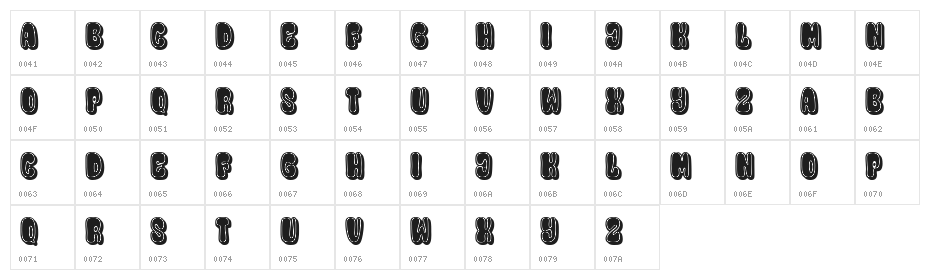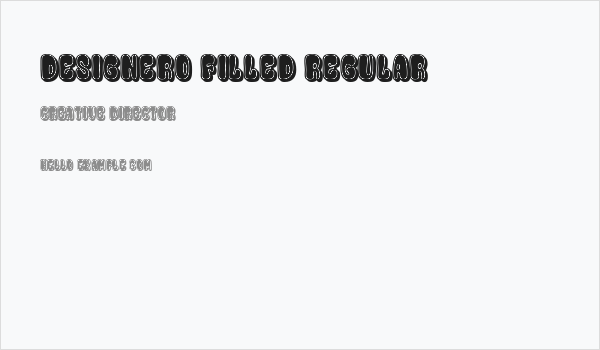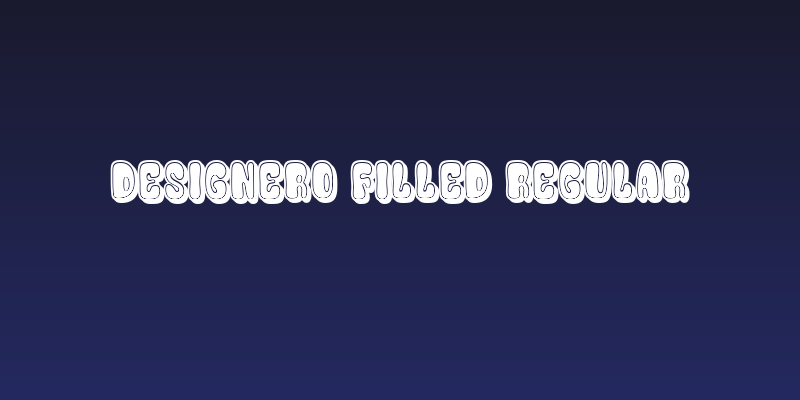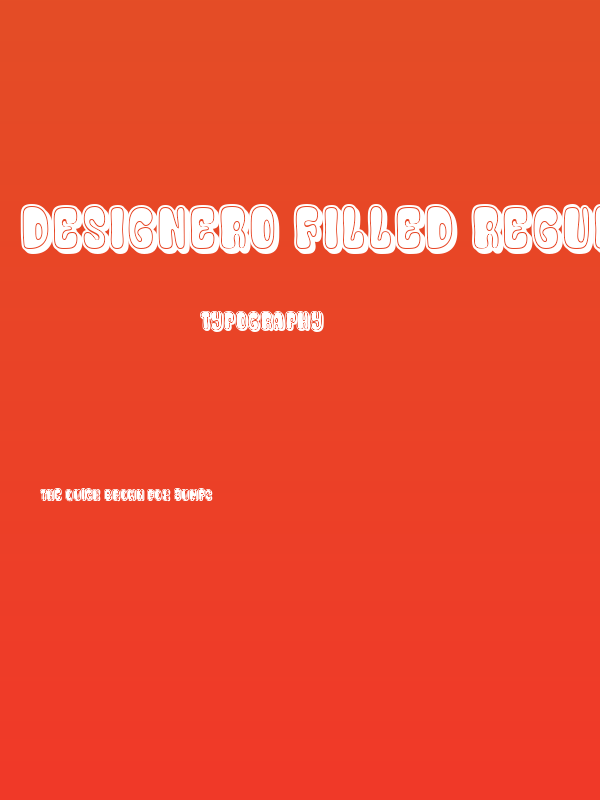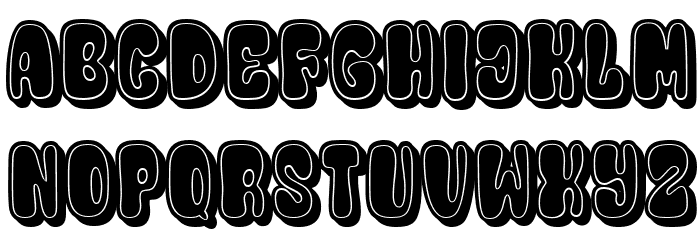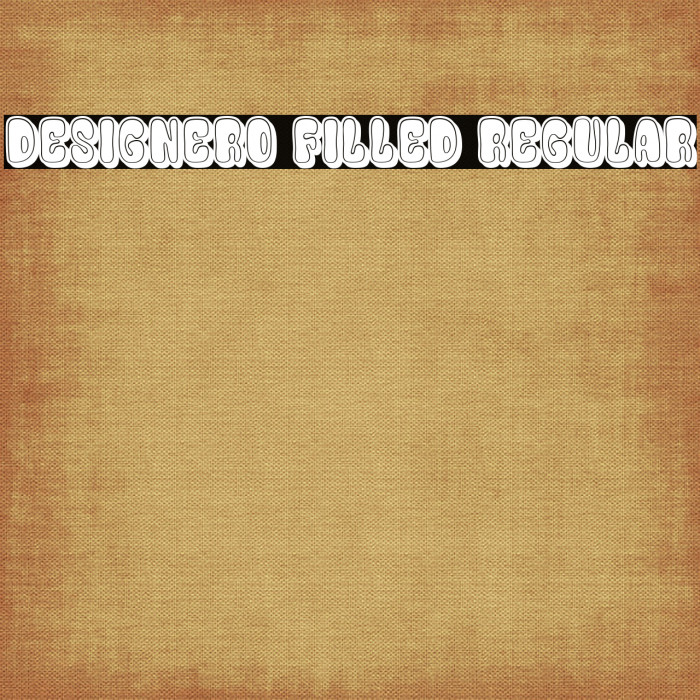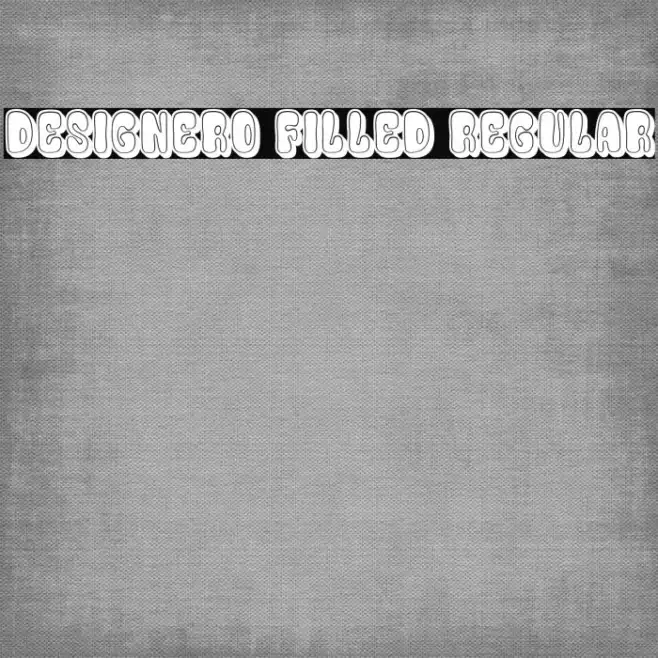
Designero Filled Regular Font
Designero Filled Regular Description
This font features bold, rounded characters with a playful and bubbly appearance. Each letter is filled with a solid color and outlined with a thick border, enhancing its visibility and impact. The overall style is reminiscent of retro or vintage designs, with a modern twist that makes it suitable for contemporary projects. The characters are evenly spaced, providing a balanced and harmonious look. This font's unique style makes it ideal for eye-catching headlines, posters, and branding materials where a fun and engaging aesthetic is desired.
| Overall Style | Retro, Playful |
| Use Case | Headlines, Posters, Branding |
| Proposed Projects | Ideal for posters, branding, children's books, and playful design projects. |